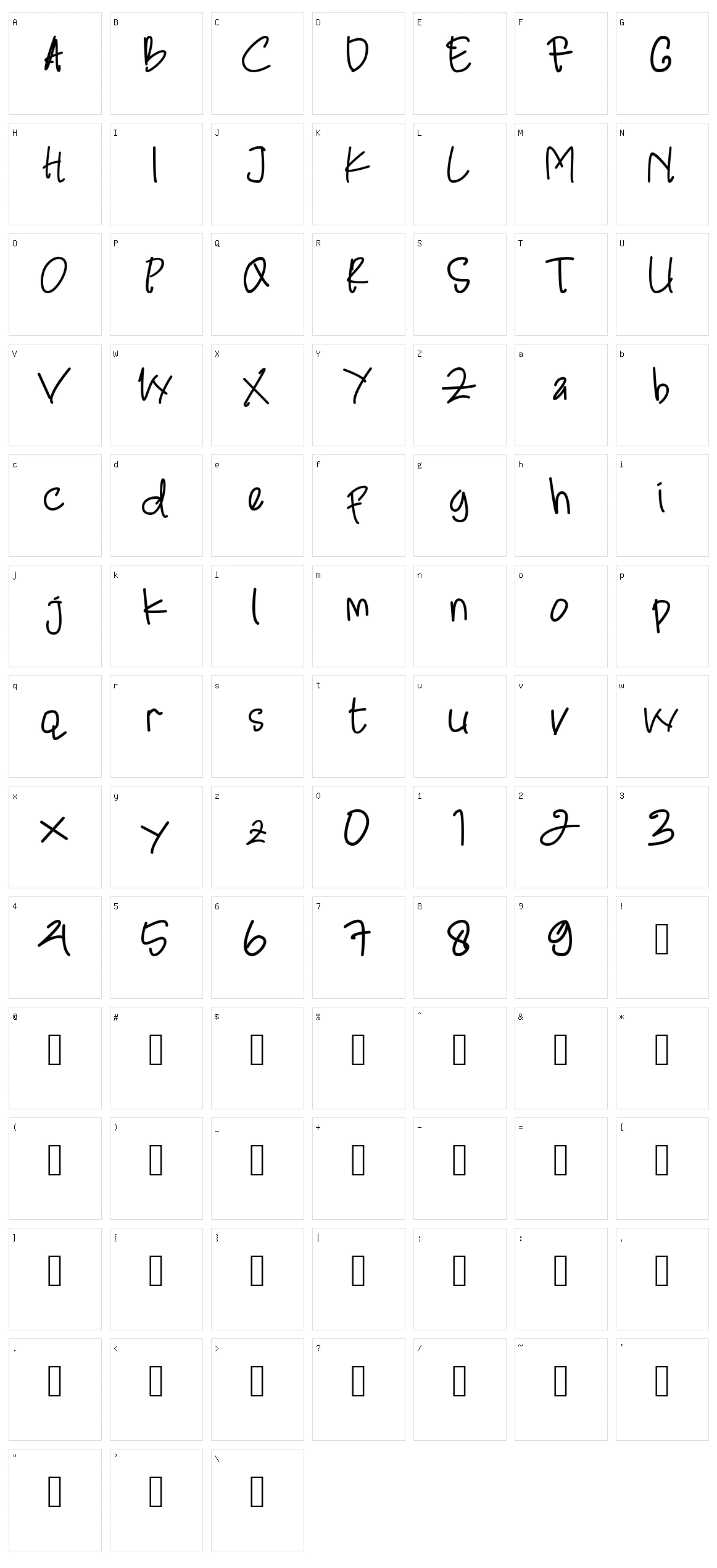
The free font Yayak is carefully designed by Sendika Vidiyantoro, showcasing a thoughtful balance of creativity and usability and falls under the Script font style. When you download the ZIP file, it contains only 326.54 KB of font files, making it lightweight and quick to download. Please review the license details below to understand permitted usage and distribution rights. If license information is not available, we recommend using this font for personal projects only or contacting the author directly for commercial usage permissions.